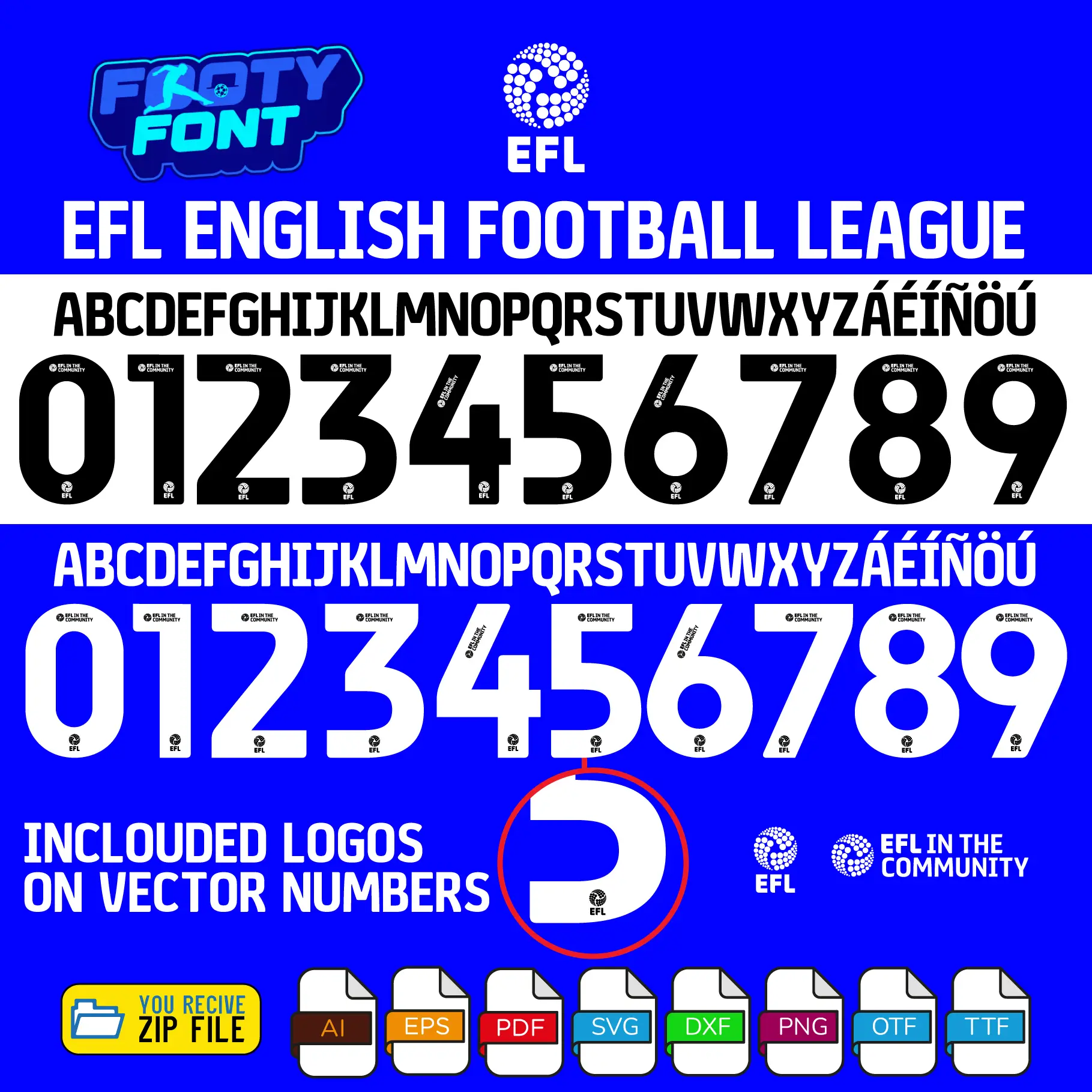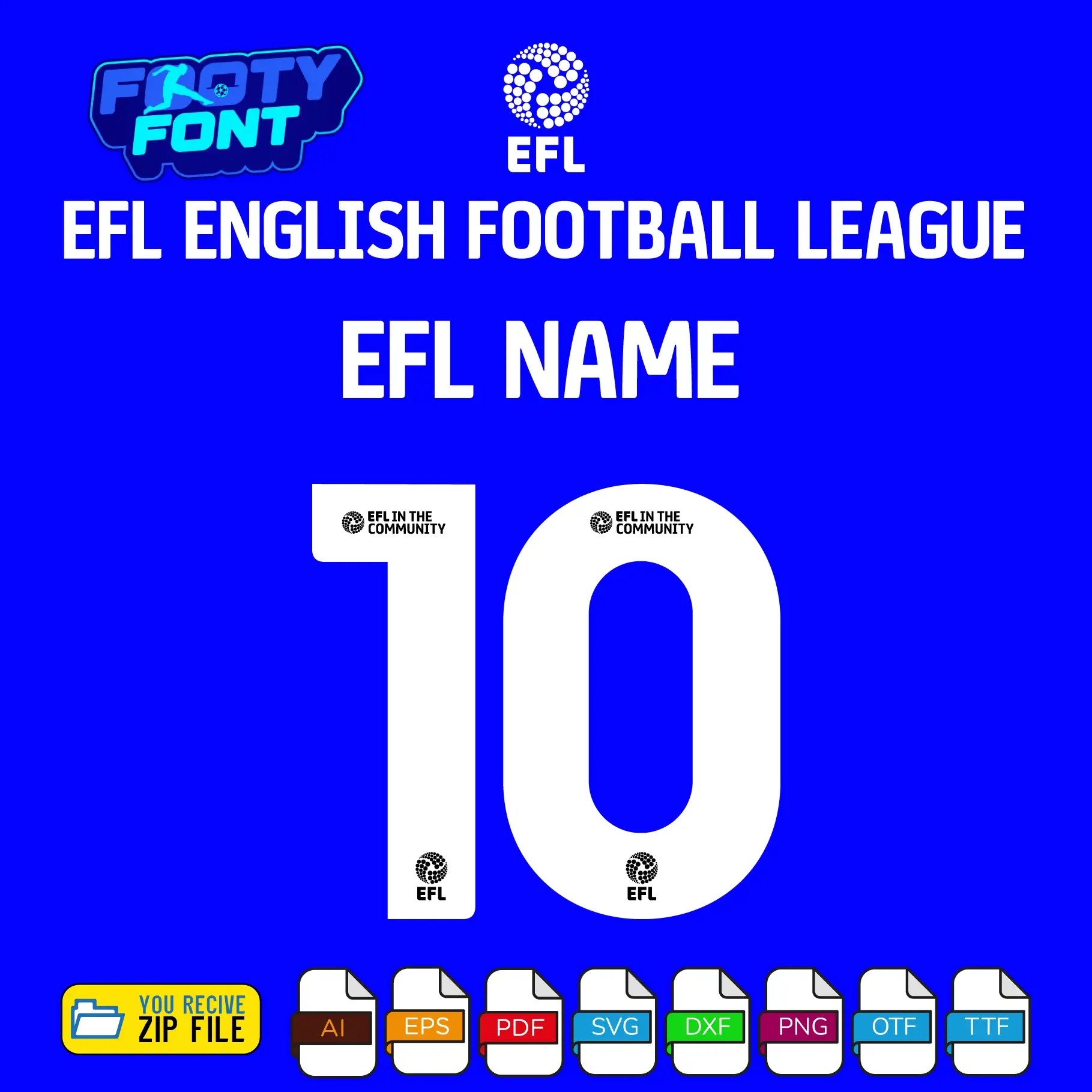
EFL English Football League Font
Bring the passion of English football’s historic divisions to your designs with this official-style EFL font. This is the standardized, high-quality typeface worn by all 72 clubs across the Sky Bet Championship, League One, and League Two.
Designed with ultimate authenticity in mind, the vector numbers include both the iconic EFL logo at the base and the “EFL in the Community” text at the top. Whether you are designing custom kits for historic heavyweights like Leeds United and Sheffield Wednesday, or creating fan gear for global sensations like Wrexham AFC, this font is an absolute must-have for authentic English football Font designs.
Use this font to bring authentic English football style into your designs-whether for custom jersey graphics, fan merchandise, posters, or social media content.
EFL English Football League Font showing the complete alphabet and white numbers featuring league logos.